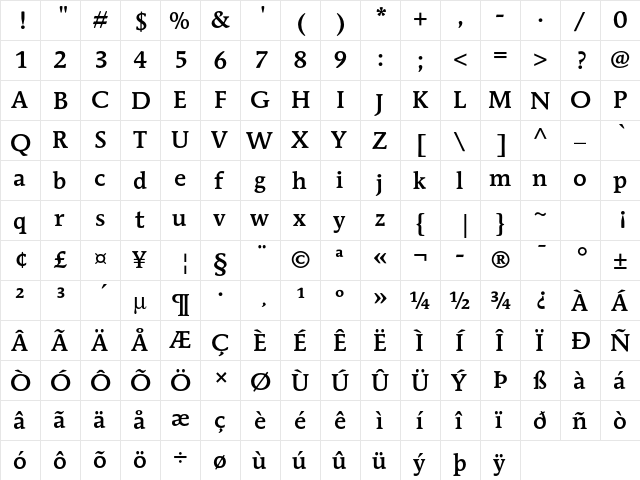
ITC Mendoza Roman Std Medium Font Preview
ITC Mendoza Roman Std Medium
ITC Mendoza Roman Std Medium Font Details
| Designer | JosΠMendoza y Almeida |
Design Context for ITC Mendoza Roman Std Typeface
ITC Mendoza Roman Std is a composed and adaptable typeface that performs quietly and consistently across a wide range of design contexts.